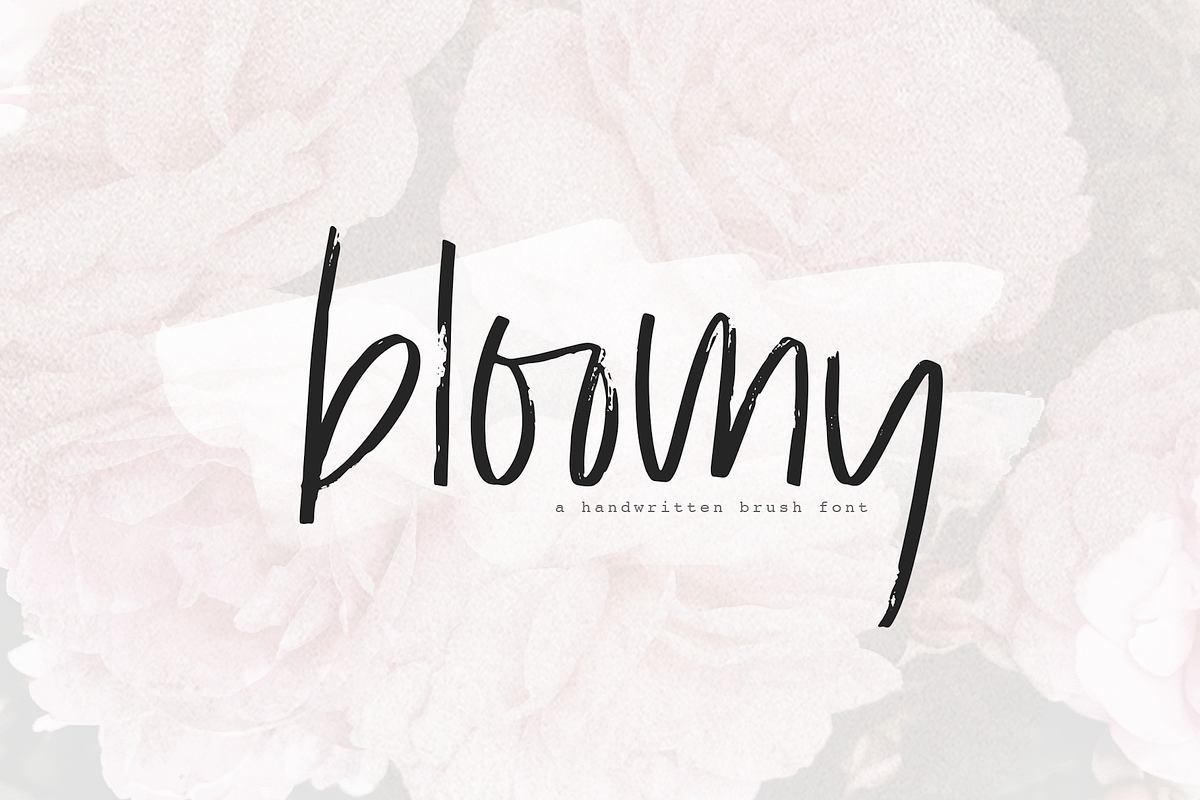
Bloomy - Chic Brush Font Free Download
Bloomy – Chic Brush Font Free Download
The font's combination of bold and delicate features allows it to add both impact and refinement to your designs. Bloomy includes uppercase and lowercase letters, numerals, punctuation, and multilingual support for global usability.
Whether you're working on luxury branding, special occasion invitations, or artful designs, Bloomy brings elegance and character to your typography.